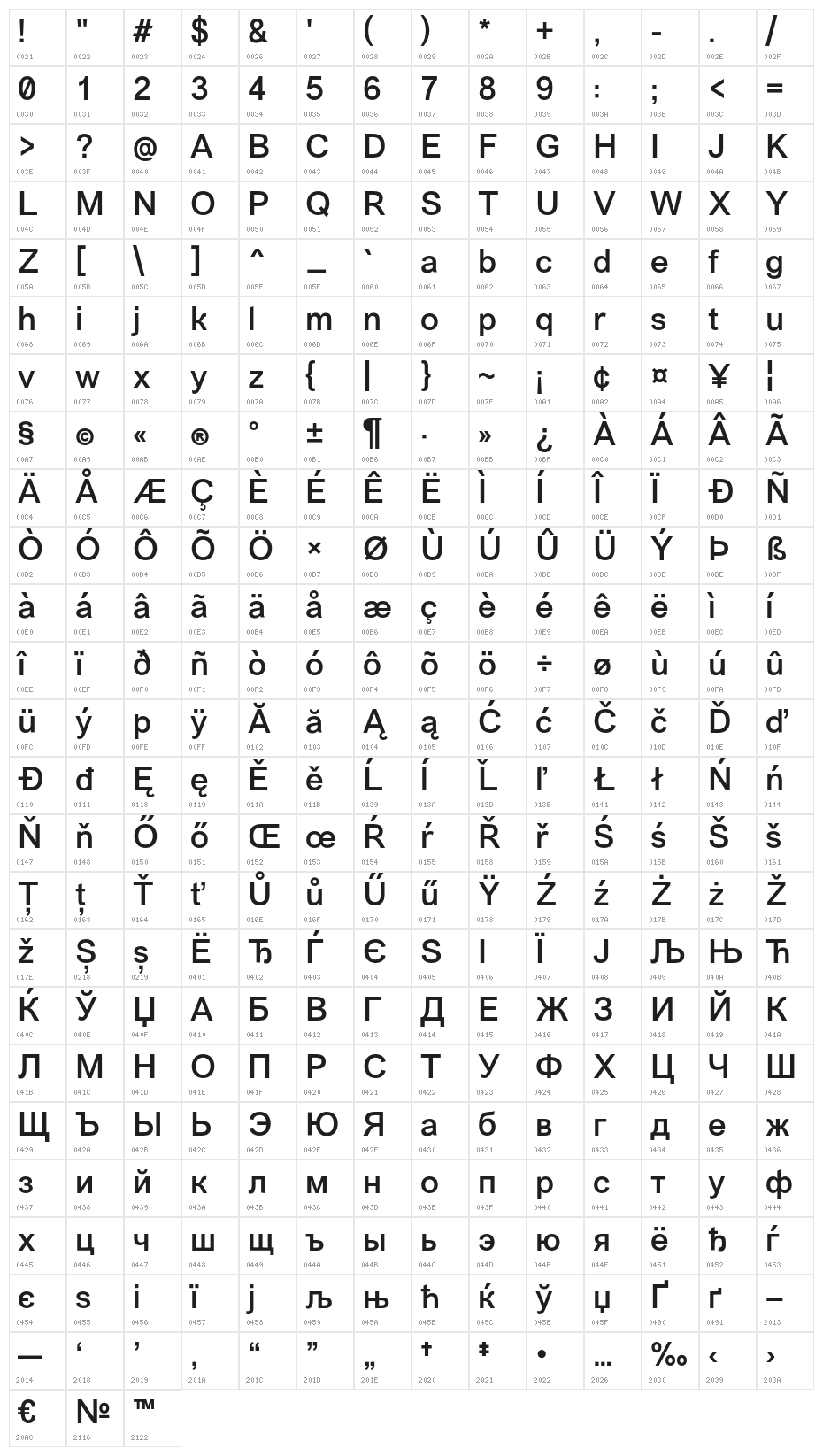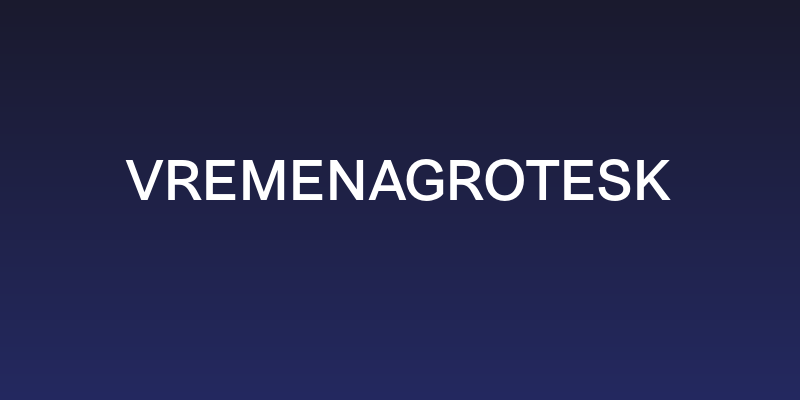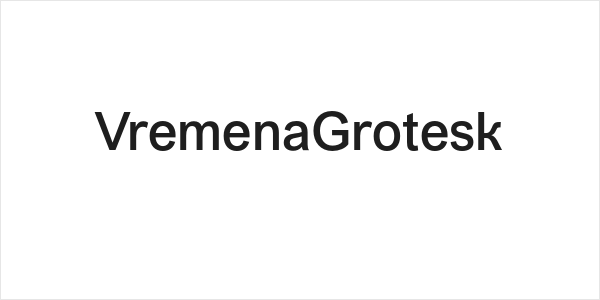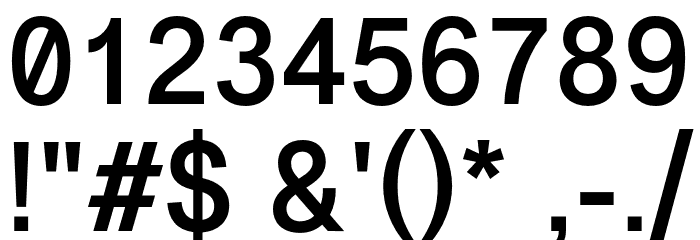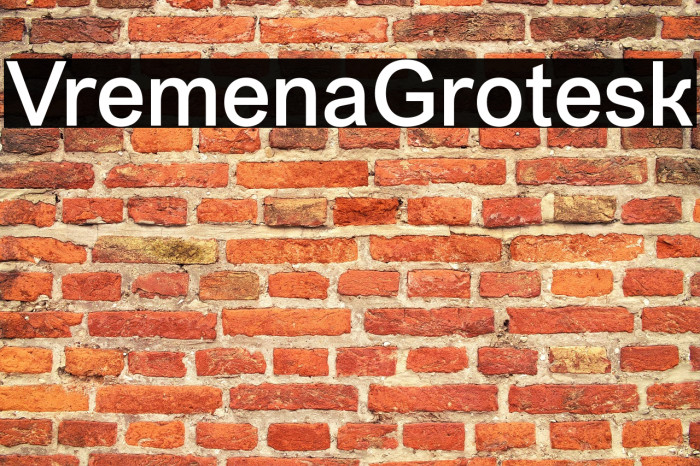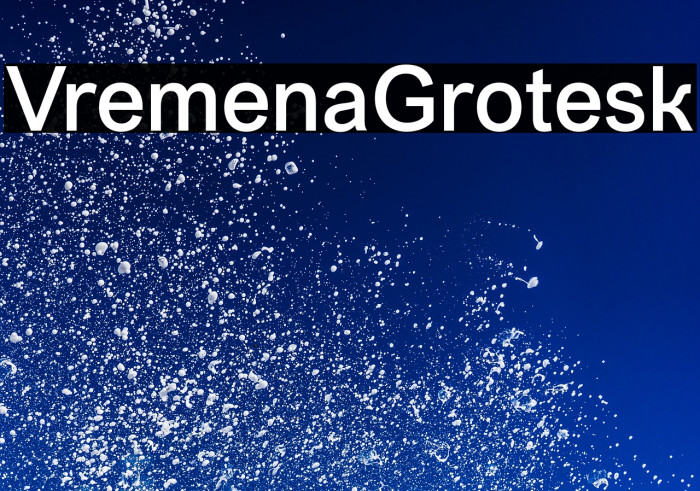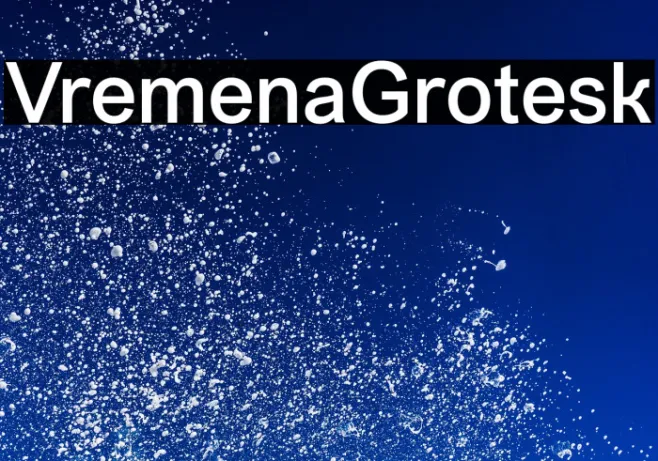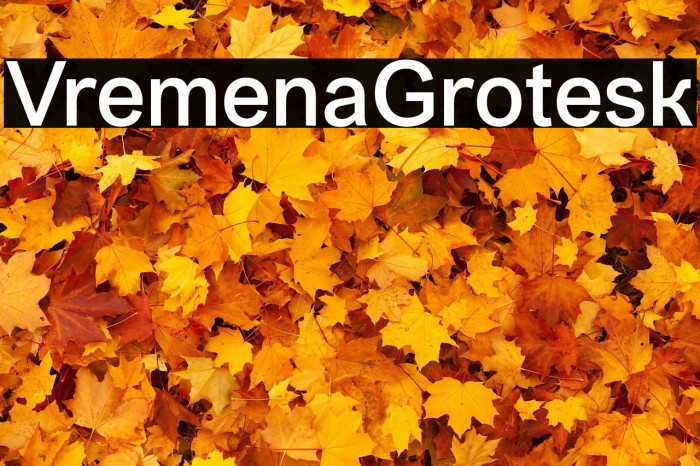
VremenaGrotesk Font
VremenaGrotesk Description
This font features a clean and modern sans-serif design, characterized by its geometric shapes and uniform stroke widths. The uppercase letters are bold and assertive, while the lowercase letters maintain a consistent and harmonious appearance. The numerals are clear and easily distinguishable, making them suitable for a variety of applications. Special characters are well-integrated, ensuring versatility in usage. The overall aesthetic is minimalistic, with a focus on readability and simplicity, making it ideal for both digital and print media.
| Proposed Projects | Ideal for branding, web design, advertising, and editorial layouts. |